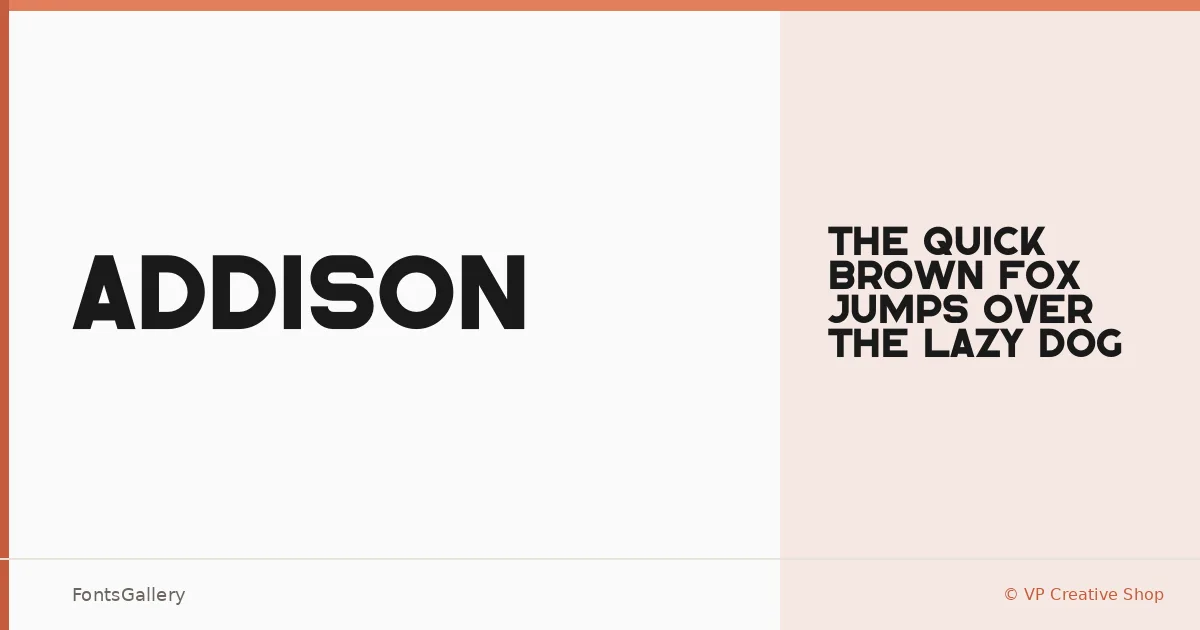
About Addison Font
There is a confident stillness to this sans serif — the kind of weight that holds a headline in place without shouting. Released by VP Creative Shop, it arrives as a single Regular cut in OTF format, designed to carry itself through display work on the strength of its proportions alone.
The forms sit squarely in modern, professional territory: clean strokes, controlled geometry, and a boldness that reads clearly at large sizes. A single Regular style keeps the focus narrow and deliberate — this is a display face built for moments where one well-chosen weight is enough. The partial Latin coverage handles the core Western European character set you would expect for headline use.
It earns its keep in branding, logo lockups, poster headlines, and advertisement titles — anywhere the type needs to project authority without decorative distraction. Paired against a high-contrast serif like Canela or ABC Arizona, it creates real tension; softer companions like Armelie or Kactigona ease it into editorial warmth, while 321 Impact pushes it toward raw graphic energy.